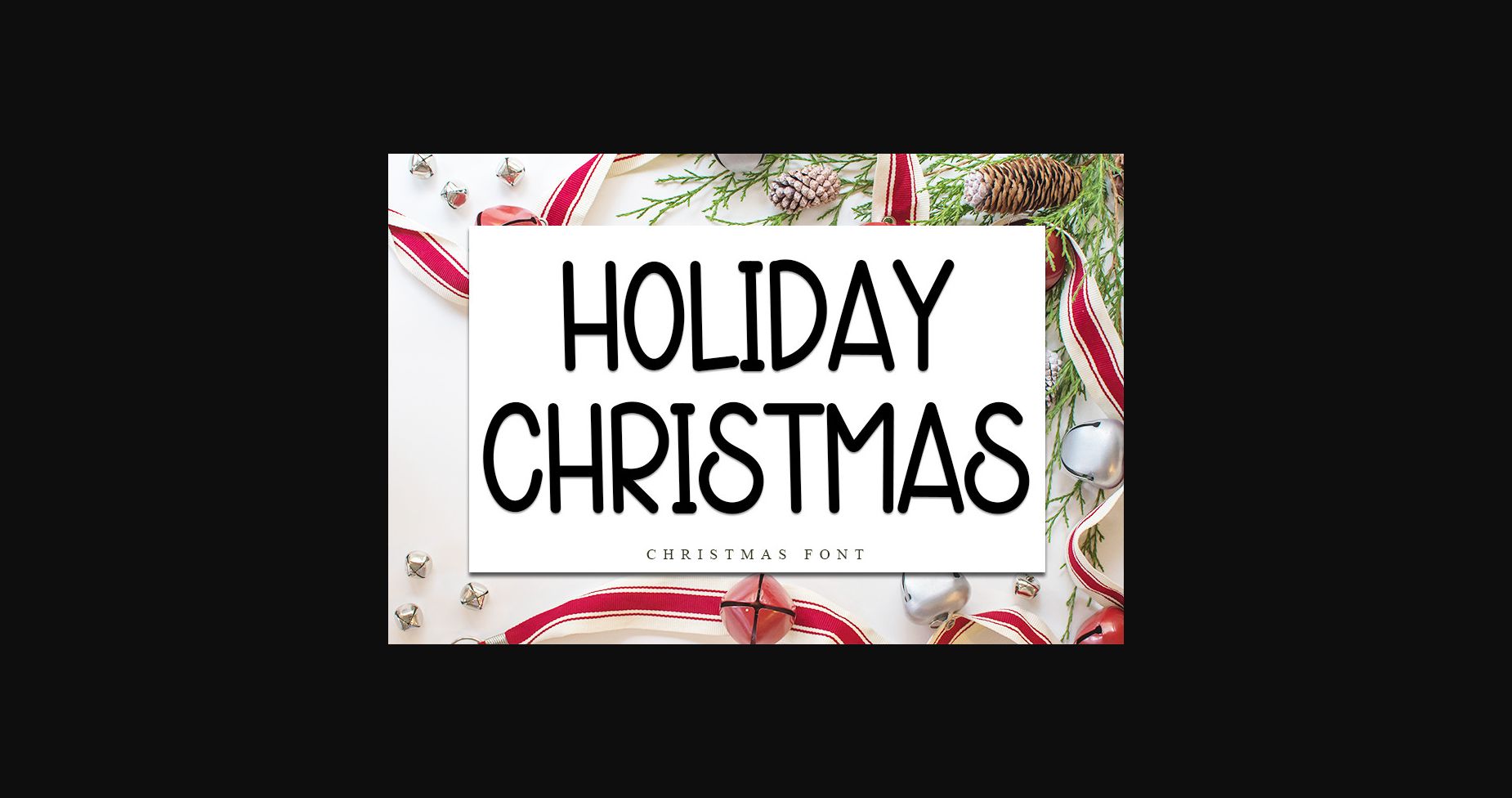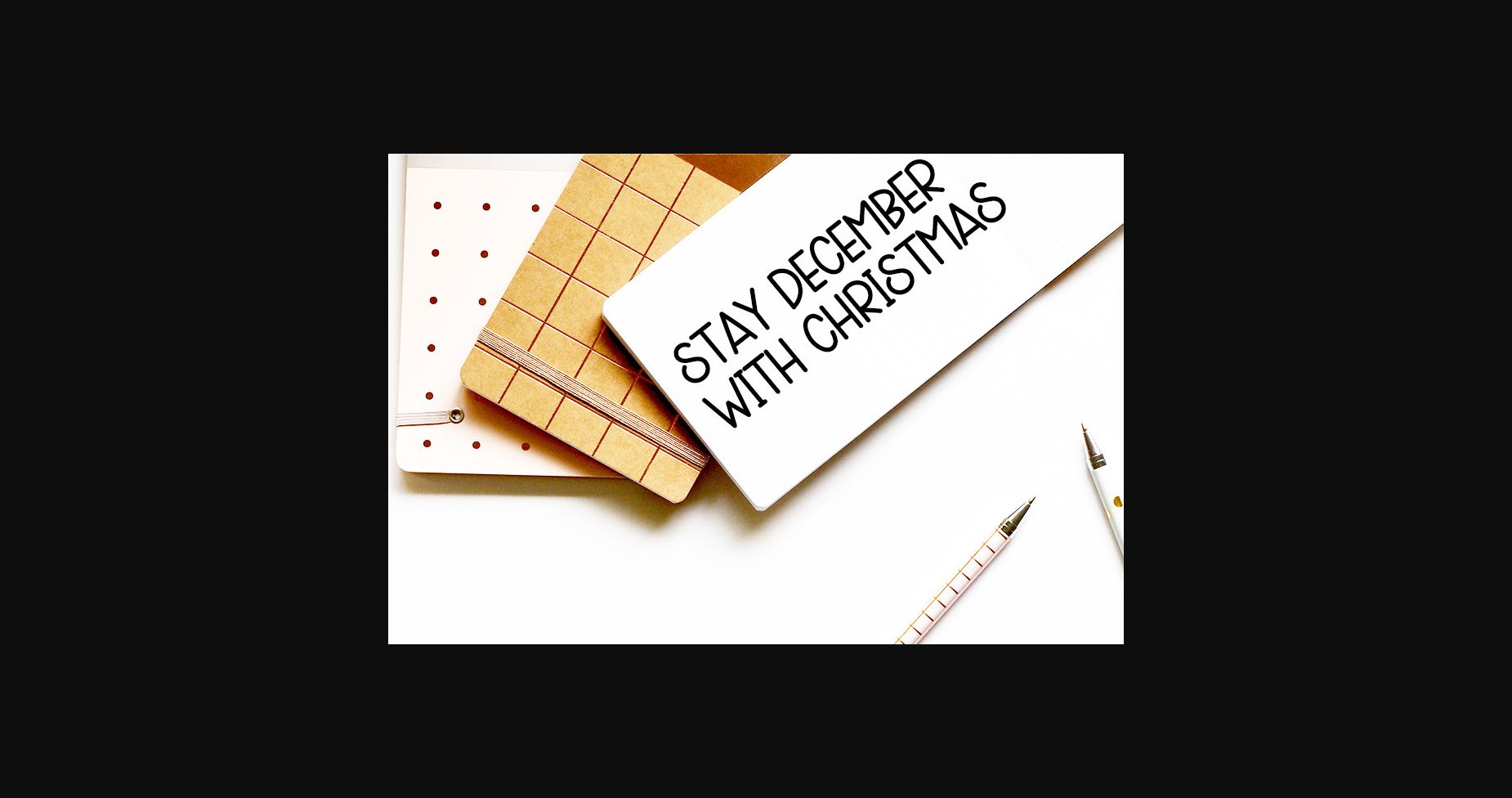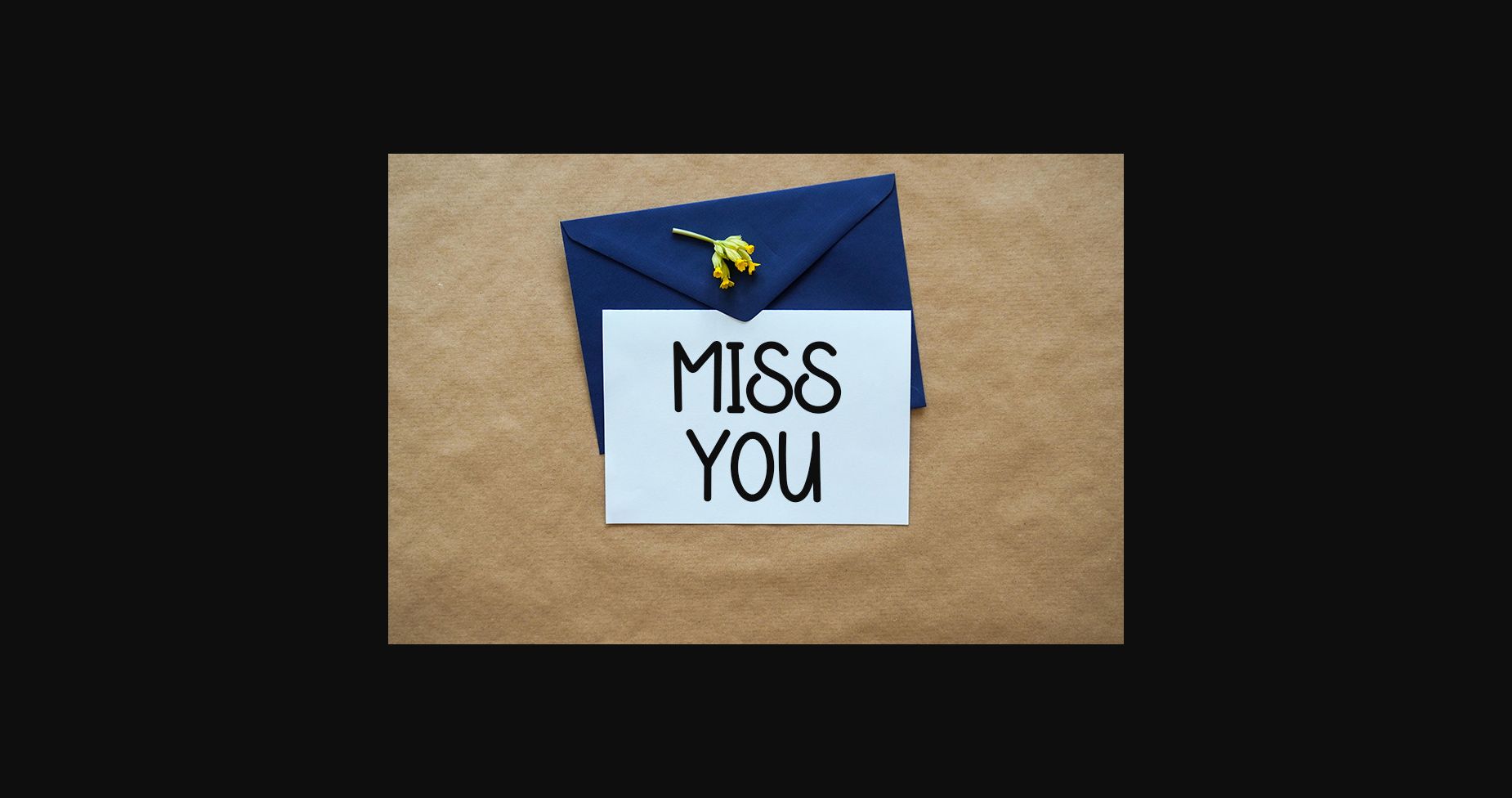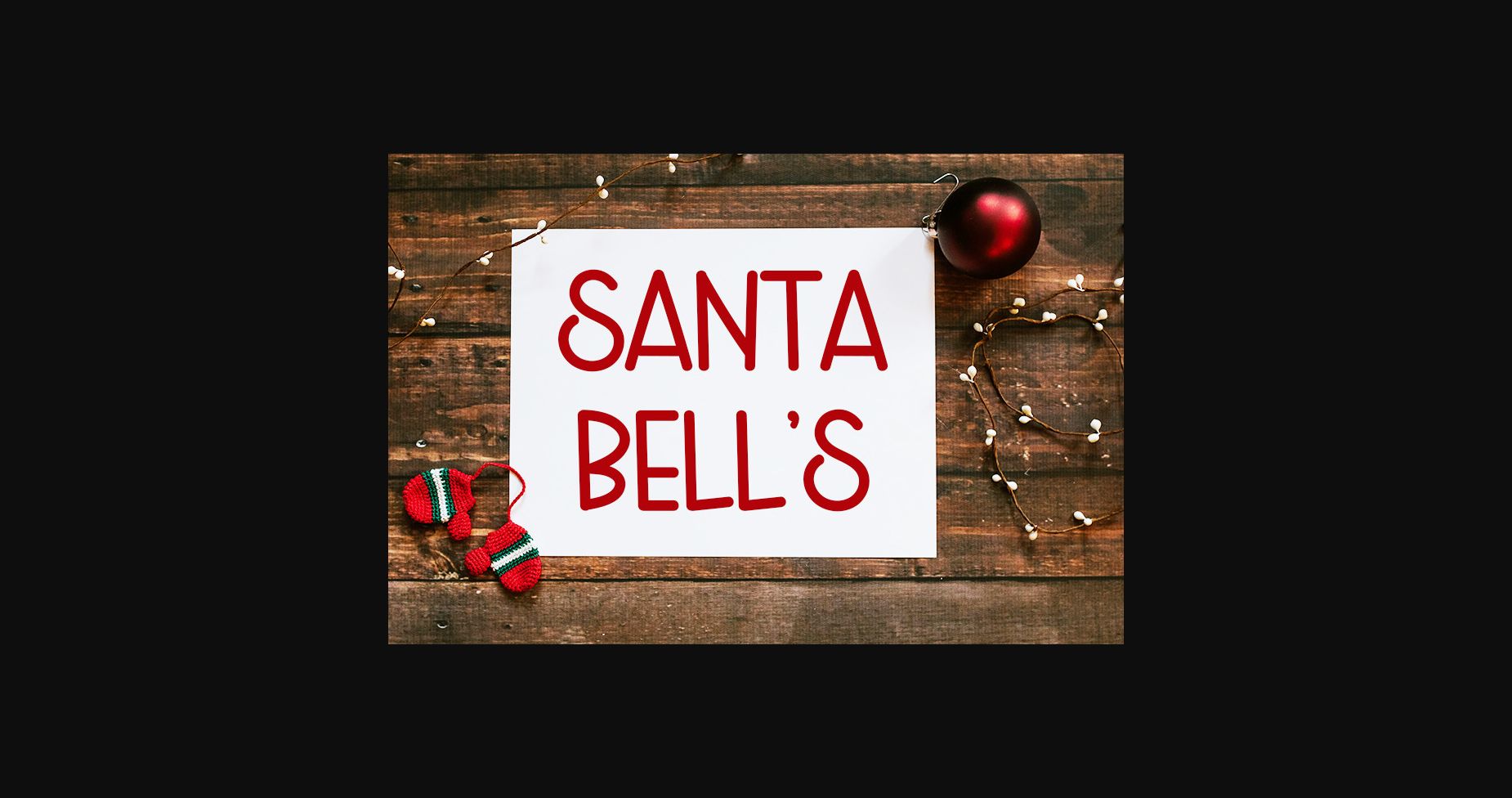
About Holiday Christmas Font
Holiday Christmas is a stylish sans serif font, with a contemporary atmosphere and impeccable form, inspired by a timeless classic calligraphy. Not too thin and not too thick, balanced and varied, this font was designed to enhance the beauty of your projects.